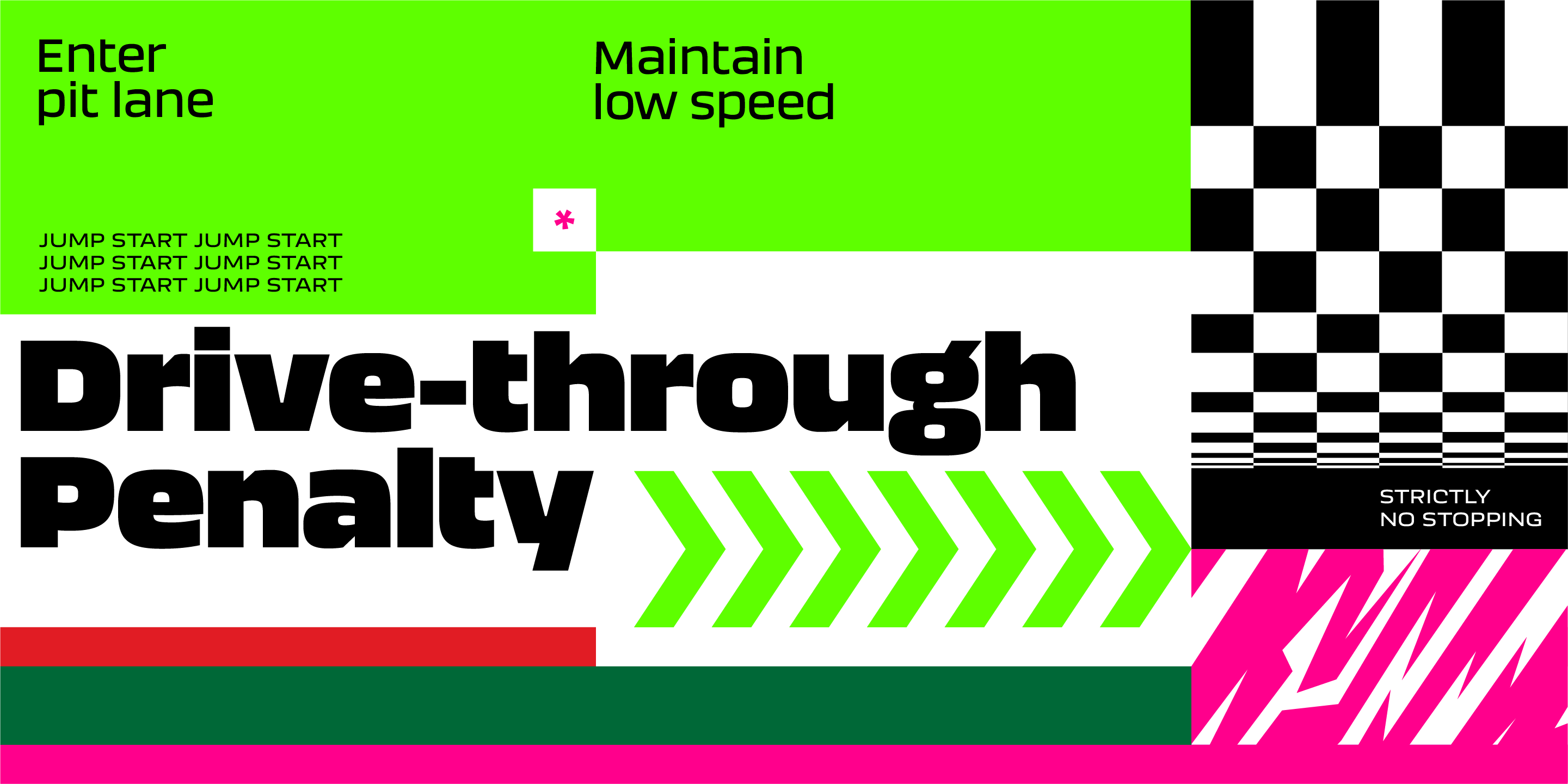
Monotype Redefines Aerodynamic Typography with Their Font Aeroko
Monotype has introduced an aerodynamic typography with their font Aeroko. A boxy and solid typeface geared toward high performance brands from sports to energy and transportation. Designed by freelance type designer, Krista Radoeva, and the Monotype Studio, Aeroko offers designers and creatives a new expressive typeface to convey a sporting grit and aggression in the form of a sans that also flexes when and where it’s needed. “Aeroko is a fresh, utile and adaptive voice that hits our global zeitgeist for inventive variable brands and generative design,” adds Phil Garnham, Creative Type Director at Monotype.